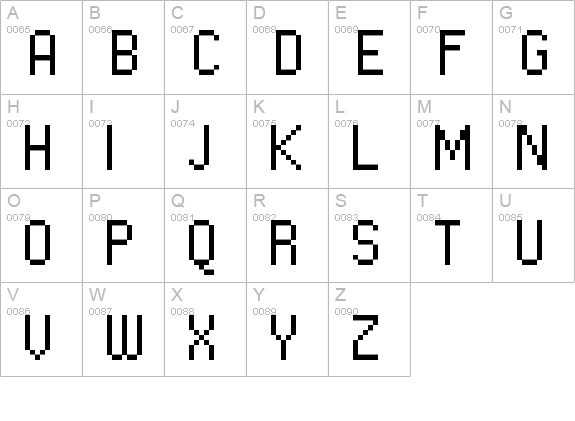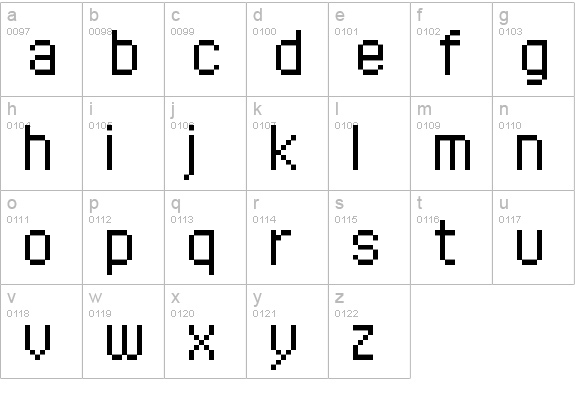
FFF Executive Trial font is a sleek and modern typeface that exudes sophistication and professionalism. With its clean lines and elegant design, this font is perfect for adding a touch of class to any project or design. The versatility of FFF Executive Trial font makes it suitable for a wide range of applications, from business cards to website headers. What makes FFF Executive Trial font even more appealing is that it is available for free download at FontsMarket.com. This means that you can easily access this high-quality font without any cost, making it a valuable addition to your font collection. Whether you are a designer looking for a new font to elevate your work or a business owner wanting to enhance your branding, FFF Executive Trial font is a fantastic choice that won't break the bank. Download it today and see for yourself the impact this font can have on your projects.